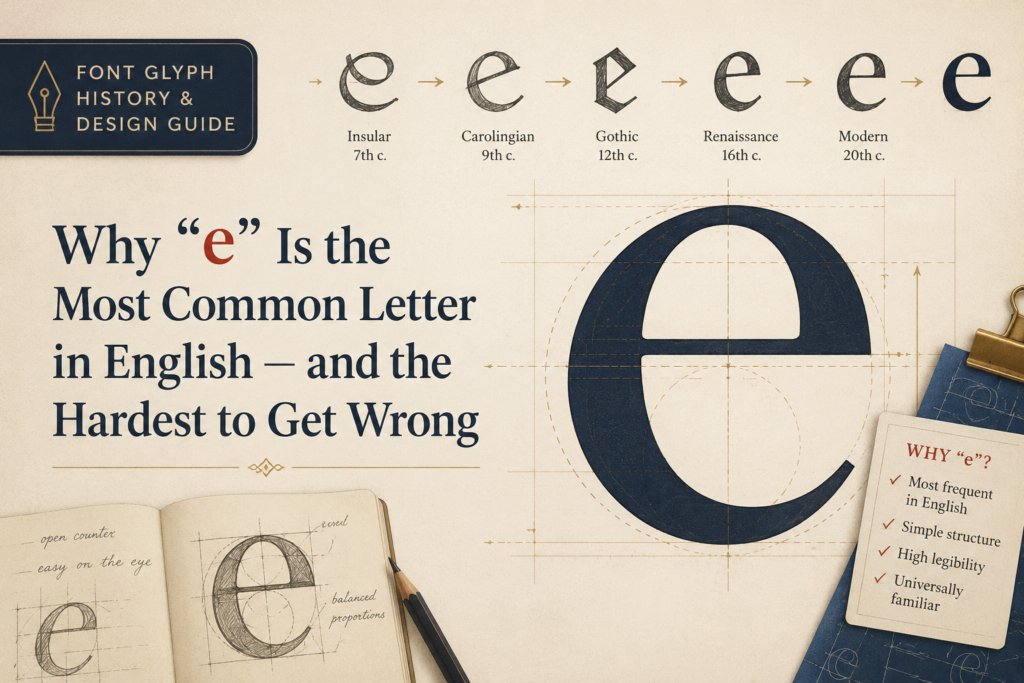
“e” is the most common letter in the English language, which means it’s also the letter under the most pressure. Every tiny flaw in its curve, every awkward angle in its crossbar, gets repeated hundreds of times across a single page of text, magnified by sheer frequency. This is the fifth entry in our glyph series, following “a,” “b,” “c,” and “d.” Today, we’re taking apart the letter you’ll see more than any other on this page.
A Short History of “e”
“e” traces back to the Phoenician letter he, which is believed to have represented a person with raised arms, possibly in a gesture of joy, prayer, or calling out — historians differ on the exact meaning, but the image of a figure with arms up is the one that tends to stick. When the Greeks adopted the letter, they renamed it epsilon and straightened its shape considerably, turning the human figure into a more geometric form with horizontal strokes stacked on a vertical spine — essentially the ancestor of the capital “E” we still use.
The Etruscans and Romans carried the letter forward largely unchanged in its capital form, which is part of why capital “E” has stayed so visually stable for roughly 2,500 years. Lowercase “e,” on the other hand, went through a more interesting transformation. During the handwritten, cursive-influenced writing of the early medieval period, scribes began closing up the open, angular Greek and Roman form into a rounder shape, and by the time the Carolingian Renaissance standardized lowercase letterforms in the 8th and 9th centuries, “e” had become the rounded shape with a horizontal crossbar that we recognize instantly today.
Interestingly, some early medieval scribal traditions experimented with a slanted or “epsilon-style” lowercase e — a more open, less enclosed shape — but the closed, crossbar-through-the-middle version won out because it was faster to write in a single continuous pen stroke and easier to distinguish from “c” and “o” at a glance.
Anatomy of a Lowercase “e”
Lowercase “e” is deceptively complex for a letter most people never think twice about. Its main body is a rounded bowl, similar in basic structure to “c” and “o,” but with a horizontal stroke — the crossbar — cutting through the middle and creating a small enclosed space called the counter.
The angle of the crossbar is one of the most quietly important decisions in the whole letter. A perfectly horizontal crossbar reads as clean and modern; a slightly upward-angled crossbar — a detail borrowed from calligraphic pen strokes — gives the letter warmth and a sense of handwritten motion. Too steep an angle, though, and “e” starts to look unstable or even like a different letter entirely at small sizes.
Just like “c,” lowercase “e” has an aperture — the opening at the bottom right where the bowl doesn’t fully close. This opening needs to be wide enough to keep the counter from clogging with ink (or pixels) at small sizes, but narrow enough that the letter doesn’t collapse visually into a “c.” Because “e” combines a closed counter, an open aperture, and a crossbar all in one small shape, it’s often considered one of the most structurally busy letters in the entire lowercase alphabet, despite looking simple at a glance.
“e” is closely related to “c” and “o” in terms of curve tension and to “a” in terms of overall bowl proportion, so all four letters typically get checked against each other repeatedly during the design process.
Designing the Letter From Scratch
Because “e” appears more often than any other letter in English text, many type designers treat it as one of the first letters drawn after “o” and “n” — the three letters most commonly used as a baseline reference for stroke weight, x-height, and curve tension across an entire typeface.
The process usually starts with the bowl, built on the same curve logic already established in “o” and “c.” From there, the crossbar gets added, and this is where most of the real design decisions happen. Designers experiment with the crossbar’s height — usually positioned right around the middle of the x-height, though shifting it up or down changes the letter’s visual weight distribution — and its angle, deciding how much upward tilt (if any) to give it.
The aperture gets tuned next, in direct comparison with “c,” since both letters share the challenge of keeping an open curve legible without collapsing into “o.” Many designers test “e” specifically in common short words — “the,” “he,” “were” — because these appear so frequently that any awkwardness in the letter becomes obvious almost immediately once it’s set in real running text rather than viewed in isolation.
Because of how often “e” repeats on a page, designers also pay close attention to how it looks when many copies appear close together in a paragraph. A subtle flaw that’s invisible in a single large specimen can become a distracting visual rhythm once it’s repeated fifty times in a paragraph, so “e” often goes through more rounds of small-size proofing than almost any other lowercase letter.
Summary
Lowercase “e” hides real complexity behind an unassuming shape — a bowl, a crossbar, an aperture, and a counter, all balanced precisely enough to survive being repeated more often than any other letter in the English language. From a Phoenician figure with raised arms, through a straightened Greek epsilon, to the rounded, crossbar-through-the-middle form scribes settled on over a thousand years ago, “e” has quietly become the letter every typeface lives or dies by, simply because of how often it shows up.